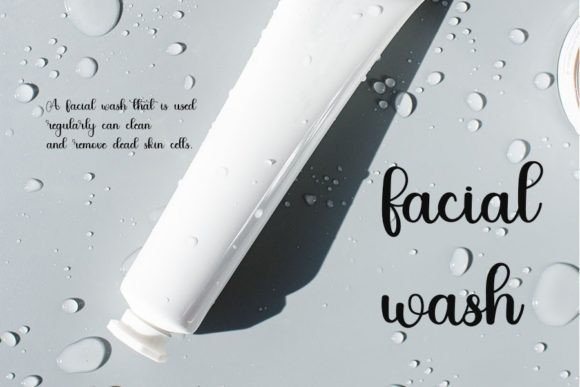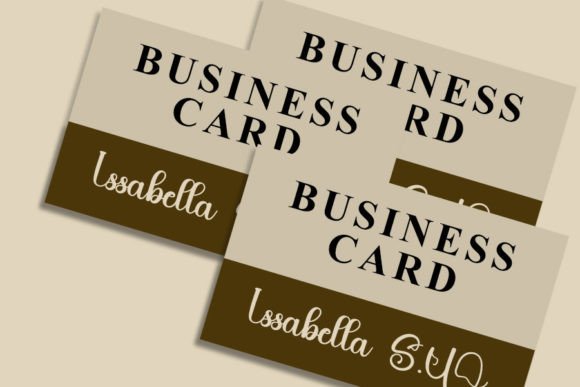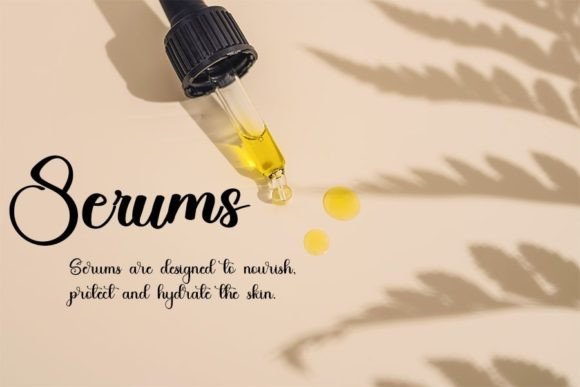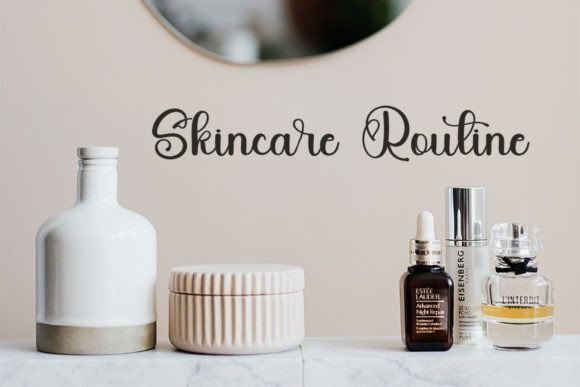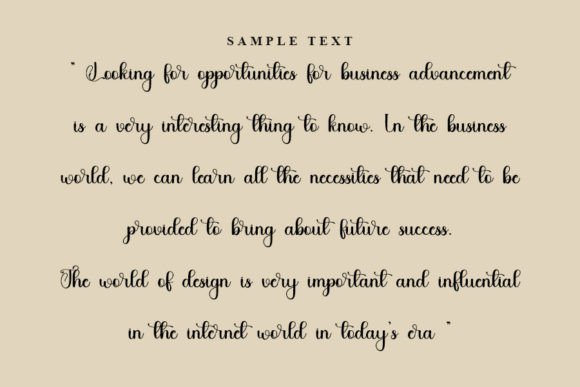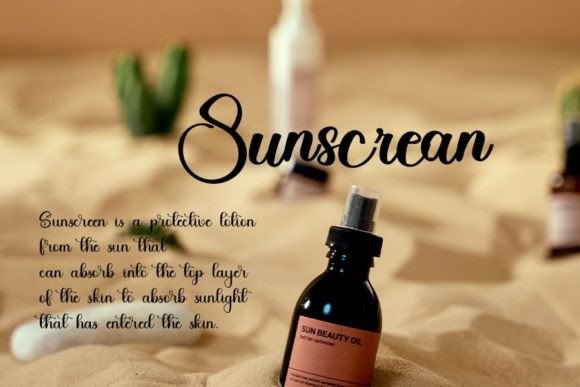
Introducing Anything Font: Elevate Your Designs with Timeless Elegance
Are you on the hunt for a font that exudes sophistication, elegance, and a touch of modern flair? Look no further than the Anything Font, a stylish handwritten typeface that is sure to elevate your designs to new heights. Inspired by the timeless classics of calligraphy, this font boasts a contemporary atmosphere and impeccable form, making it the perfect addition to any project.
The Beauty of Anything Font
Anything Font is a masterclass in balance and variation. With its carefully crafted letterforms, this font showcases a beautiful marriage of traditional calligraphy and modern sensibilities. Each character is meticulously designed to ensure that your text reads smoothly and looks stunning, whether you’re working on a logo, a heading, or a body of text.
One of the standout features of Anything Font is its versatility. This font is designed to work beautifully in a wide range of contexts, from elegant branding and advertising to creative crafts and DIY projects. Whether you’re a professional designer or a crafty hobbyist, Anything Font is the perfect choice for anyone looking to add a touch of sophistication to their work.
Key Features of Anything Font
- Handwritten with a contemporary twist: Anything Font boasts a stylish, handwritten aesthetic with a modern edge that’s perfect for designers and crafters looking for a unique look.
- Inspired by timeless classic calligraphy: This font draws on the beauty of traditional calligraphy, ensuring that your designs are always elegant and refined.
- Balanced and varied: With its carefully crafted letterforms, Anything Font offers a beautiful balance of character and variation, making it perfect for use in a wide range of projects.
- Impeccable form: Each character in Anything Font is meticulously designed to ensure that your text reads smoothly and looks stunning.
Using Anything Font in Your Designs
- Branding and logos: Use Anything Font to create a stunning logo or brand identity that exudes elegance and sophistication.
- Advertising and marketing: This font is perfect for use in advertising and marketing materials, such as brochures, flyers, and social media graphics.
- Crafts and DIY projects: Anything Font is also a great choice for crafty hobbyists looking to add a touch of elegance to their projects, such as handmade cards, gift tags, and scrapbooking pages.
In conclusion, Anything Font is a stylish and elegant handwritten typeface that is sure to elevate your designs to new heights. With its timeless classic calligraphy inspiration, impeccable form, and balanced character, this font is perfect for designers and crafters looking for a sophisticated and modern look. Whether you’re working on a branding project, an advertising campaign, or a crafty DIY project, Anything Font is the perfect choice.